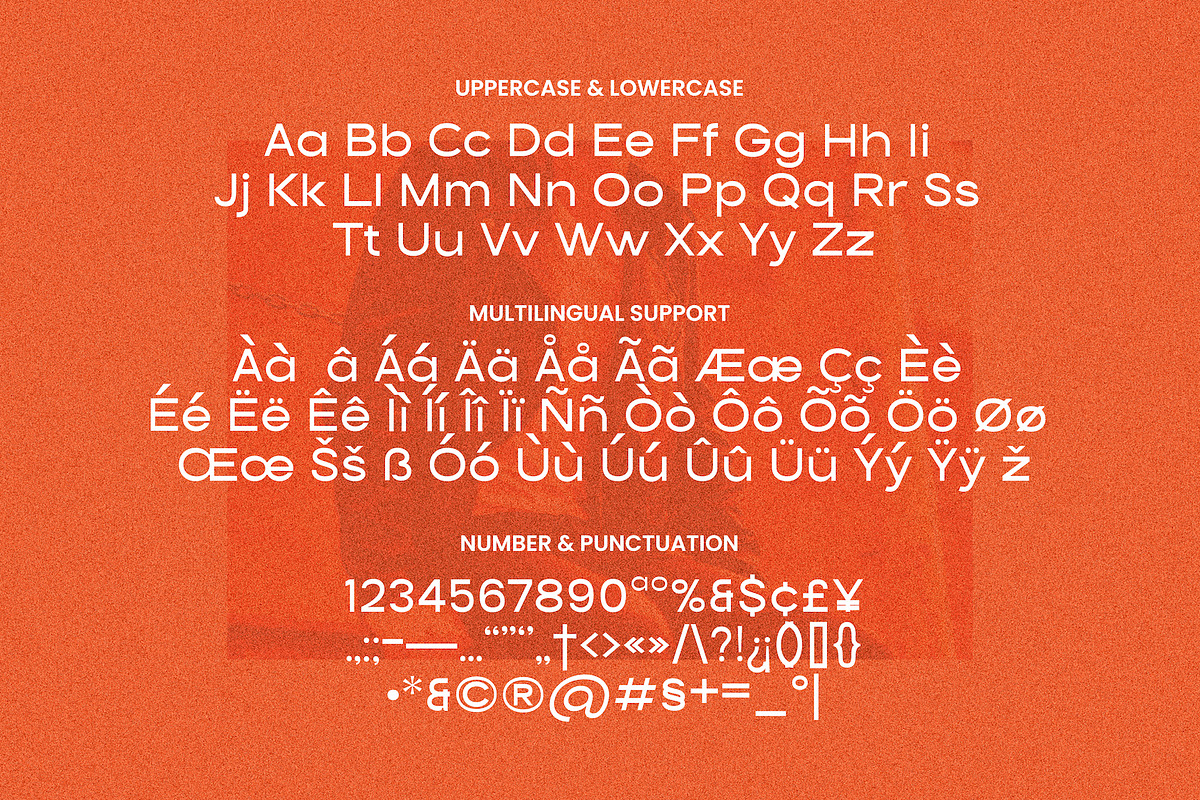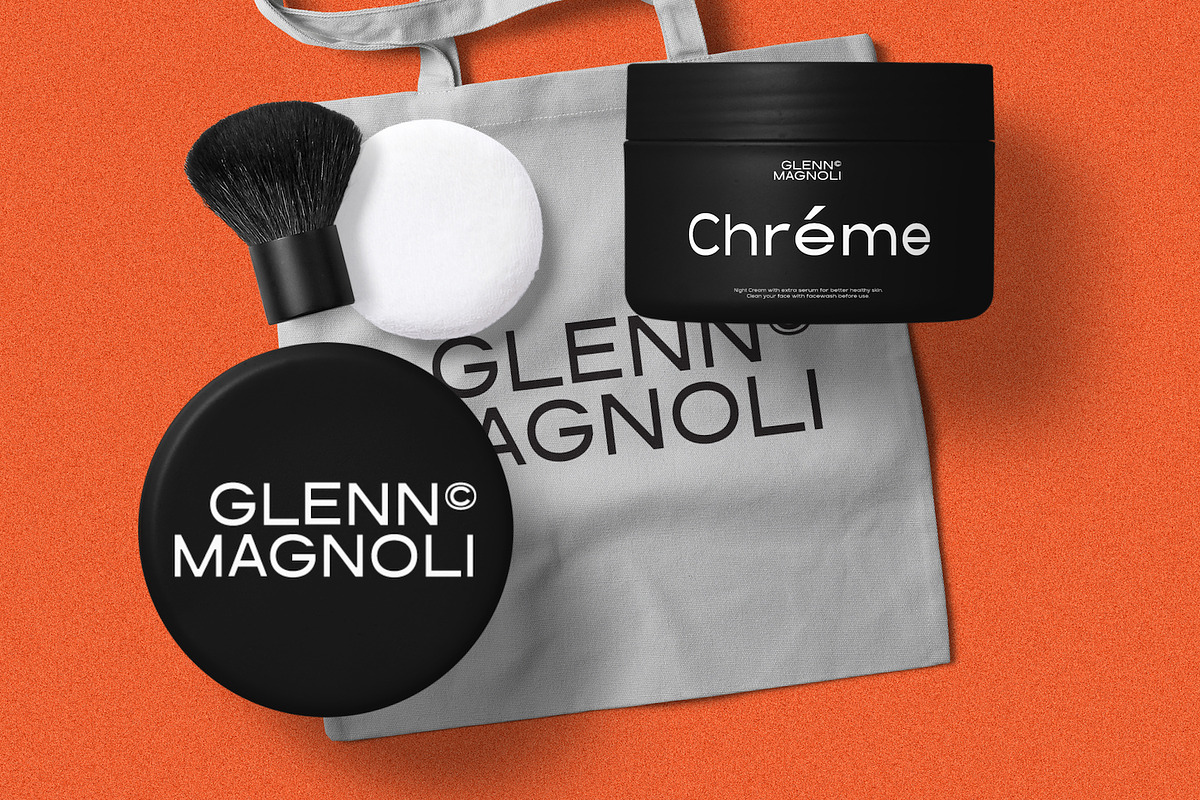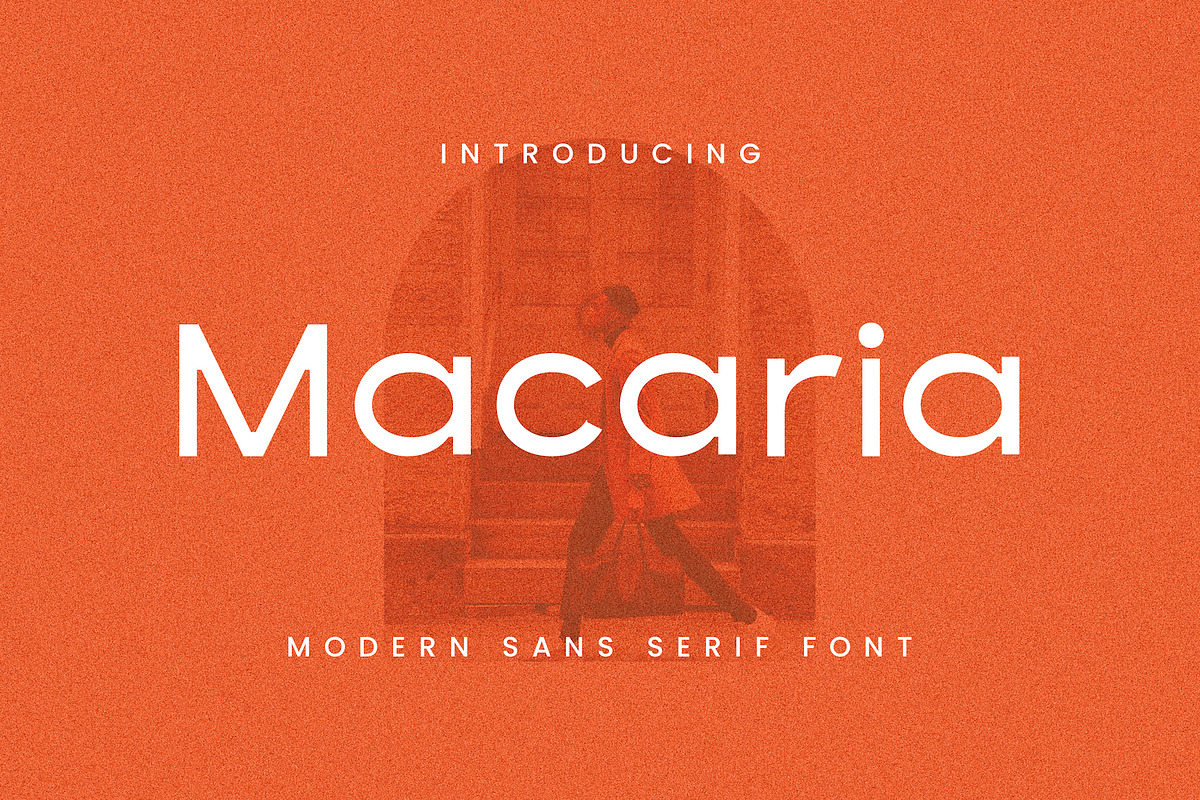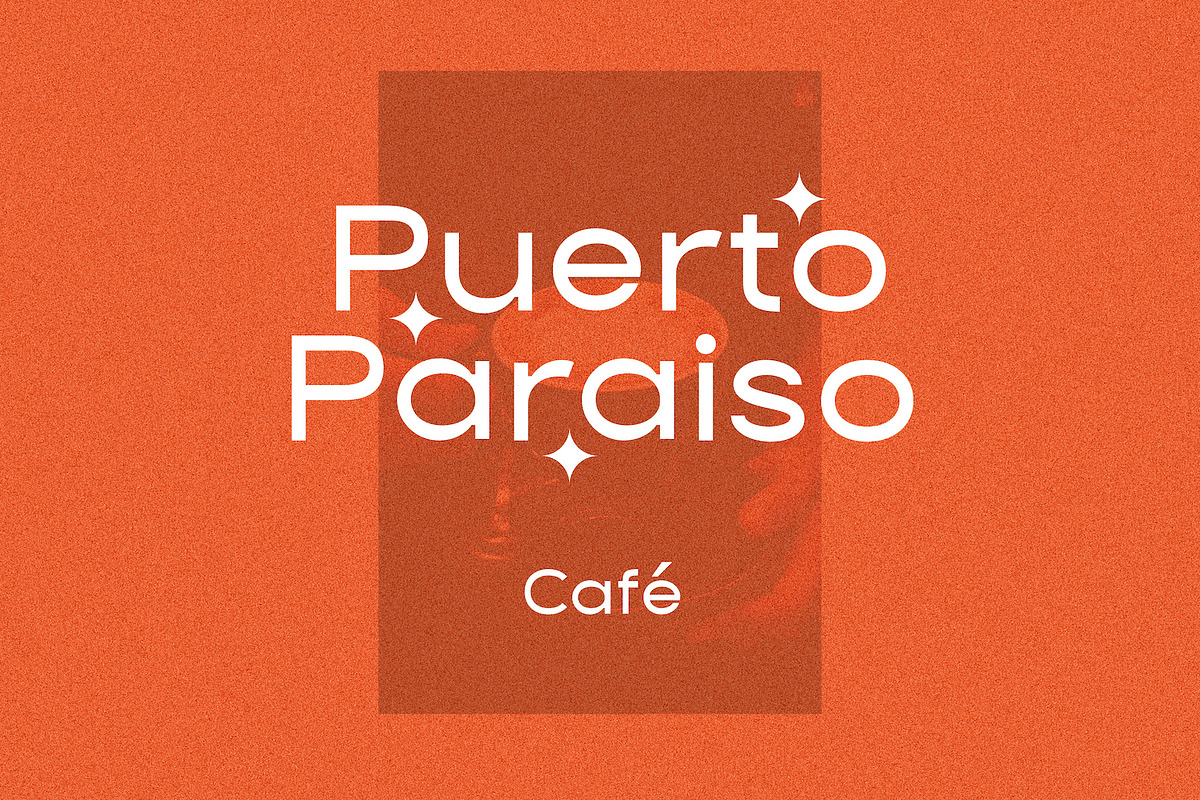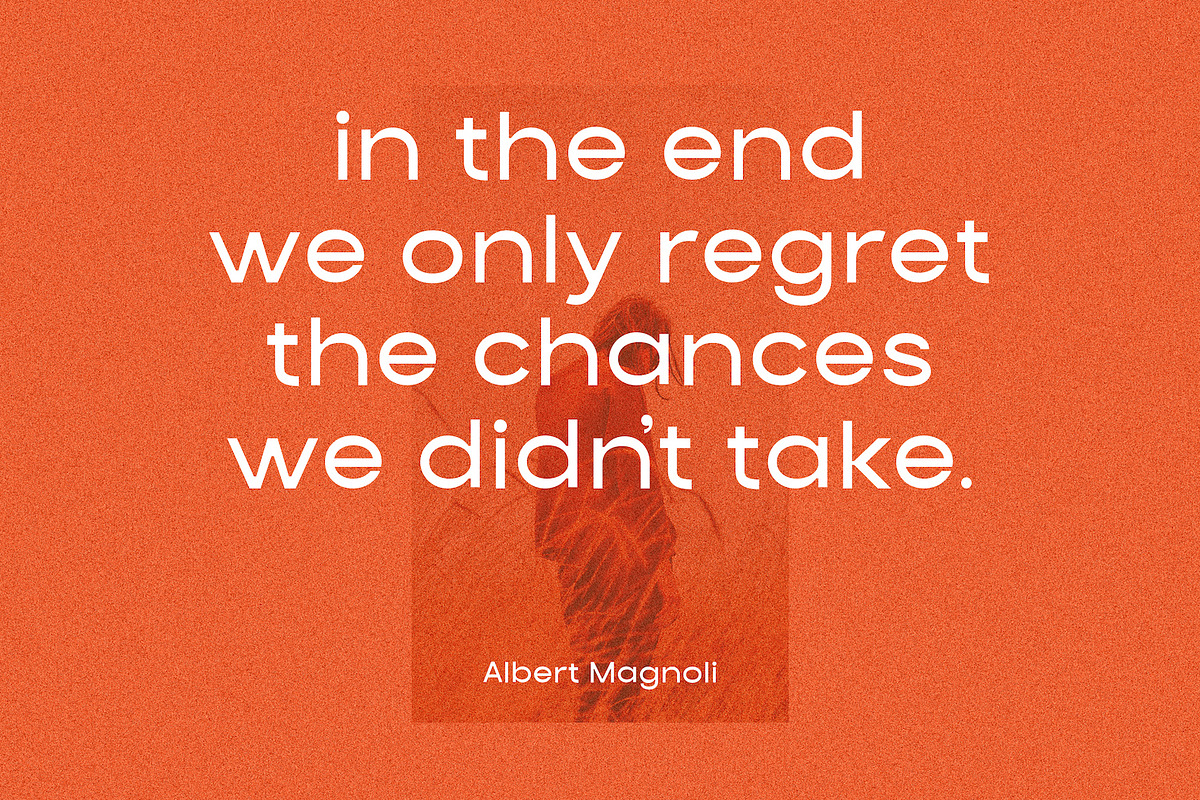
Macaria
Macaria is a modern geometric sans serif typeface with a clean, minimalist structure and refined proportions. The letterforms feature soft rounded corners and monoline strokes.
Macaria is a bold and architectural font, delivering strong visual impact for logos, headlines, and editorial layouts. This font suitable for international branding projects. Its versatile design works beautifully across fashion, beauty, lifestyle, hospitality, packaging, social media, and luxury branding applications.
Uppercase and Lowecase Characters.
PUA Encoded Characters.
Numerals and Punctuations.
Alternates and Ligatures.
Multilingual Support.